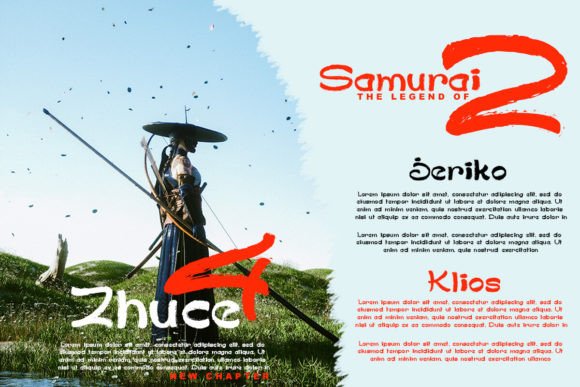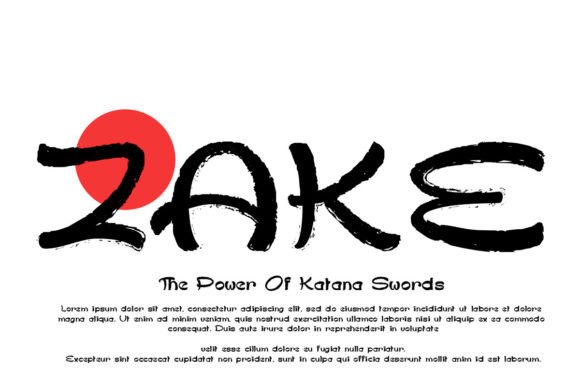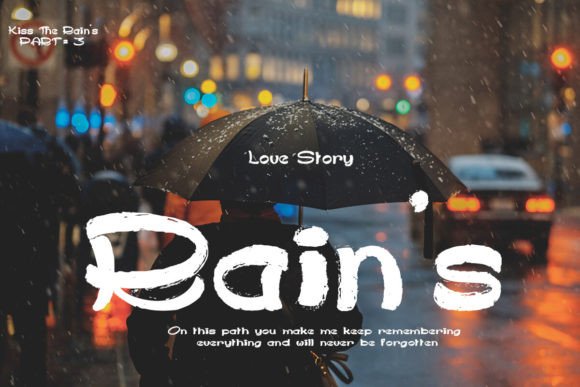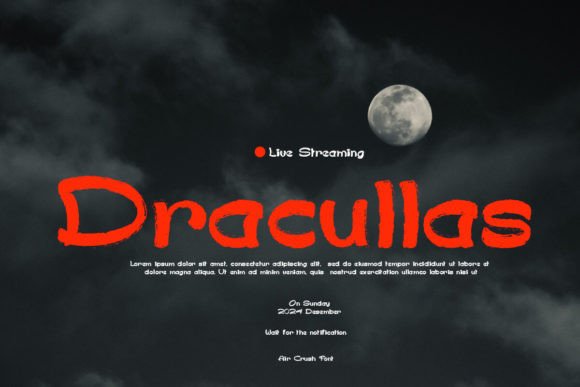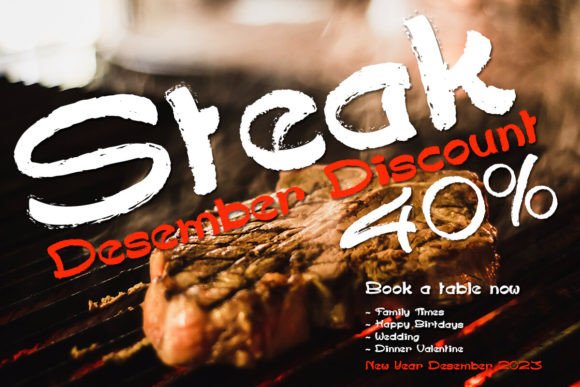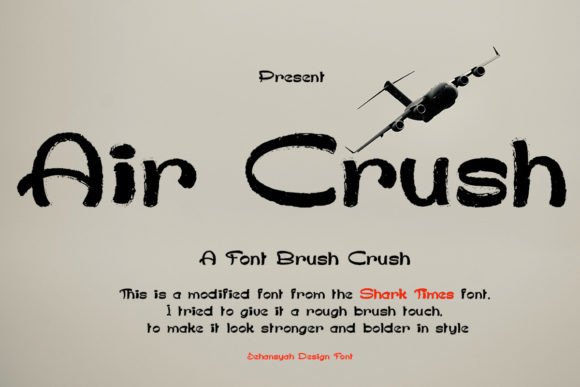
Unleash Your Creativity with Air Crush Font: A Unique Display Font
Are you tired of using the same old fonts for your creative projects? Look no further than Air Crush Font, an incredibly unique display font that’s sure to take your designs to the next level. Masterfully designed to become a true favorite, this font has the potential to bring each of your creative ideas to the highest level. In this article, we’ll dive into the features and benefits of Air Crush Font, and explore how it can elevate your designs.
What is Air Crush Font?
Air Crush Font is a display font that’s designed to make a statement. Its unique and creative design makes it perfect for a variety of projects, from branding and advertising to packaging and signage. With its bold and eye-catching style, Air Crush Font is sure to grab attention and leave a lasting impression.
Key Features of Air Crush Font
- Unique Design: Air Crush Font features a one-of-a-kind design that’s sure to set your projects apart from the rest.
- High-Quality Vectors: This font is made up of high-quality vectors that ensure crisp and clean lines, even at large sizes.
Benefits of Using Air Crush Font
So why choose Air Crush Font for your next project? Here are just a few benefits of using this amazing display font:
- Adds Visual Impact: Air Crush Font is designed to grab attention and add visual impact to your projects.
- Enhances Creativity: With its unique design, Air Crush Font can help inspire creativity and bring new ideas to life.
- Versatile: This font can be used for a range of projects, from digital designs to print materials.
- Professional-Looking Results: Air Crush Font is designed to produce professional-looking results, making it perfect for clients and personal projects alike.
Who Can Benefit from Air Crush Font?
Air Crush Font is perfect for a range of designers and crafters, including:
- Graphic Designers: Add a unique touch to your branding, advertising, and packaging designs.
- Signmakers: Create eye-catching signs and displays with Air Crush Font.
- Crafters: Use Air Crush Font to add a personal touch to your DIY projects, such as handmade cards and gift tags.
- Digital Designers: Add a professional touch to your digital designs, including social media graphics and website headers.
Air Crush Font is an incredibly unique display font that’s sure to take your designs to the next level. With its bold and eye-catching style, high-quality vectors, and ease of use, this font is perfect for a range of projects. Whether you’re a graphic designer, signmaker, crafter, or digital designer, Air Crush Font is a must-have addition to your font collection. So why wait? Download Air Crush Font today and unleash your creativity!